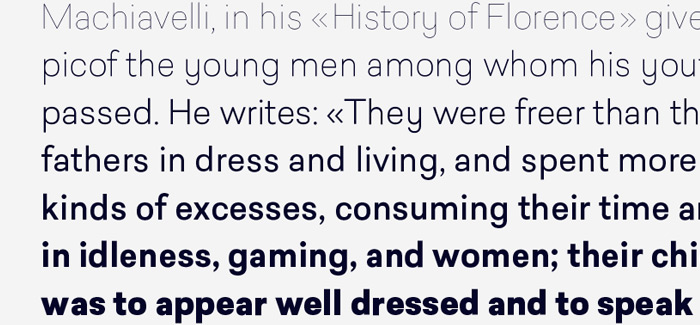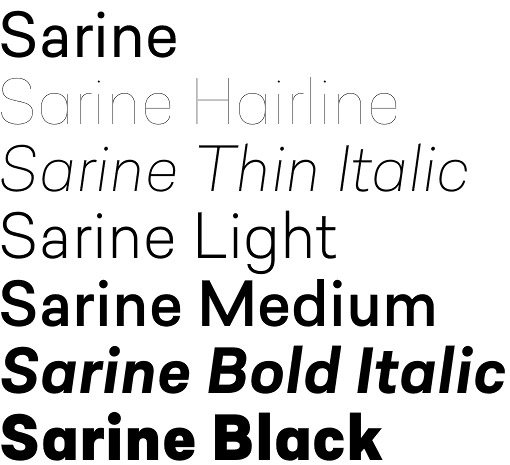
Sarine font
Sarine font by the Type Dynamic foundry is a complete Sans Serif typeface family consisting of seven weights (From Hairline to Black) plus their italics. Its design is inspired by traffic signage, and the font family is aimed to technical applications.
Each of the fonts in the Sarine font family features OpenType possibilities such as Stylistic Alternates, Proportional Figure, Tabular Figures, Numerator, Superscript, Denominators, Scientific Inferiors, Subscript, Ordinals, Ligatures and Fractions.
Sarine look outstanding in caption sizes, while keeping excellent legibility in small ones.